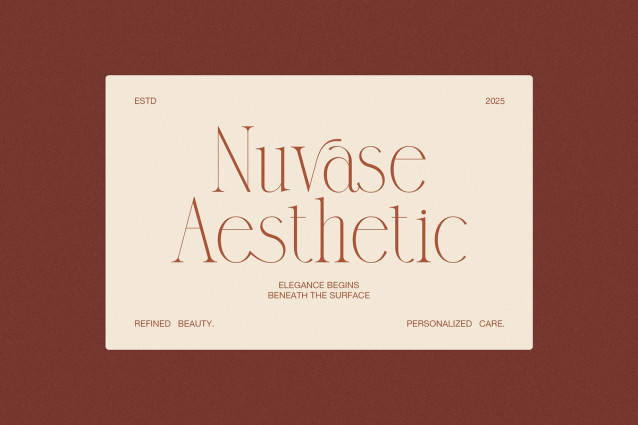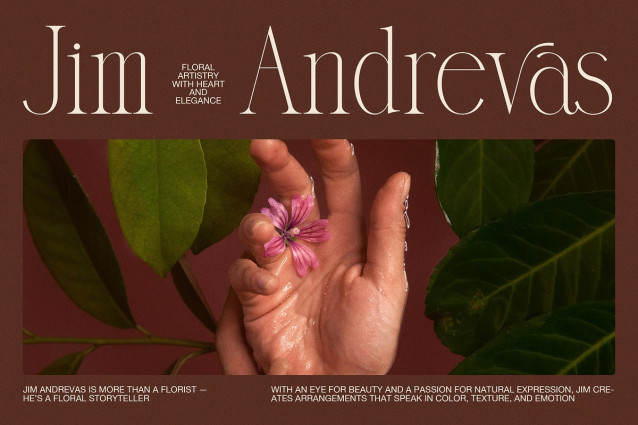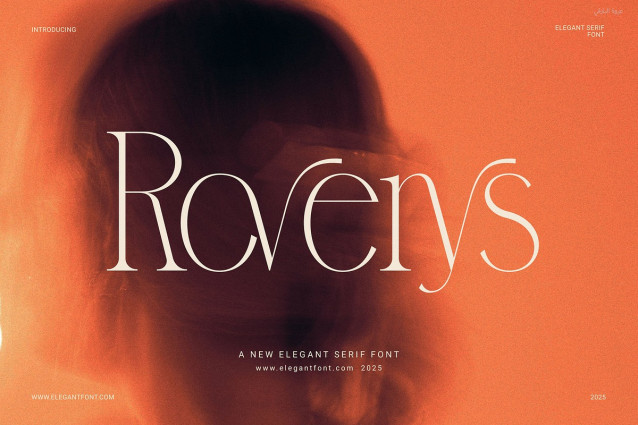
Roverys Font
Roverys Font is a modern serif font with a clean and simple look. Its thin strokes and sleek shapes give your design a stylish and polished feel. While the overall style stays minimal, it still shows elegance and class. Each letter is shaped with care, so it looks smooth and balanced in every design.
Besides that, Roverys includes helpful ligatures that make your text look more natural and flow better. Because of its neat form and soft edges, this font works well in many creative fields. You can use it for luxury branding, websites, labels, product designs, or magazines. It looks professional in every layout, whether on screen or in print.
Even more, Roverys keeps your message clear. If you’re designing for fashion, beauty, food, or personal brands, this font adds a calm and refined touch. Since it’s easy to use, it helps speed up your design process while still making everything look sharp.